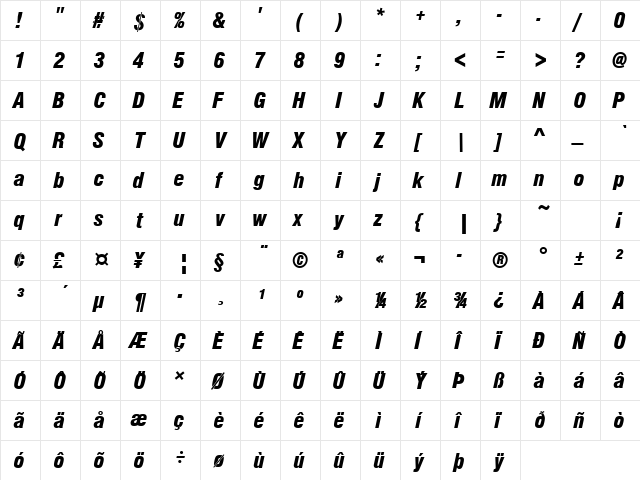
NimbusSanPBlaCon Italic Font Preview
NimbusSanPBlaCon Italic
NimbusSanPBlaCon Italic Font Details
Design Context for NimbusSanPBlaCon Typeface
NimbusSanPBlaCon is a composed and adaptable typeface that performs quietly and consistently across a wide range of design contexts. Its italic angle brings a sense of urgency and motion to the letterforms.